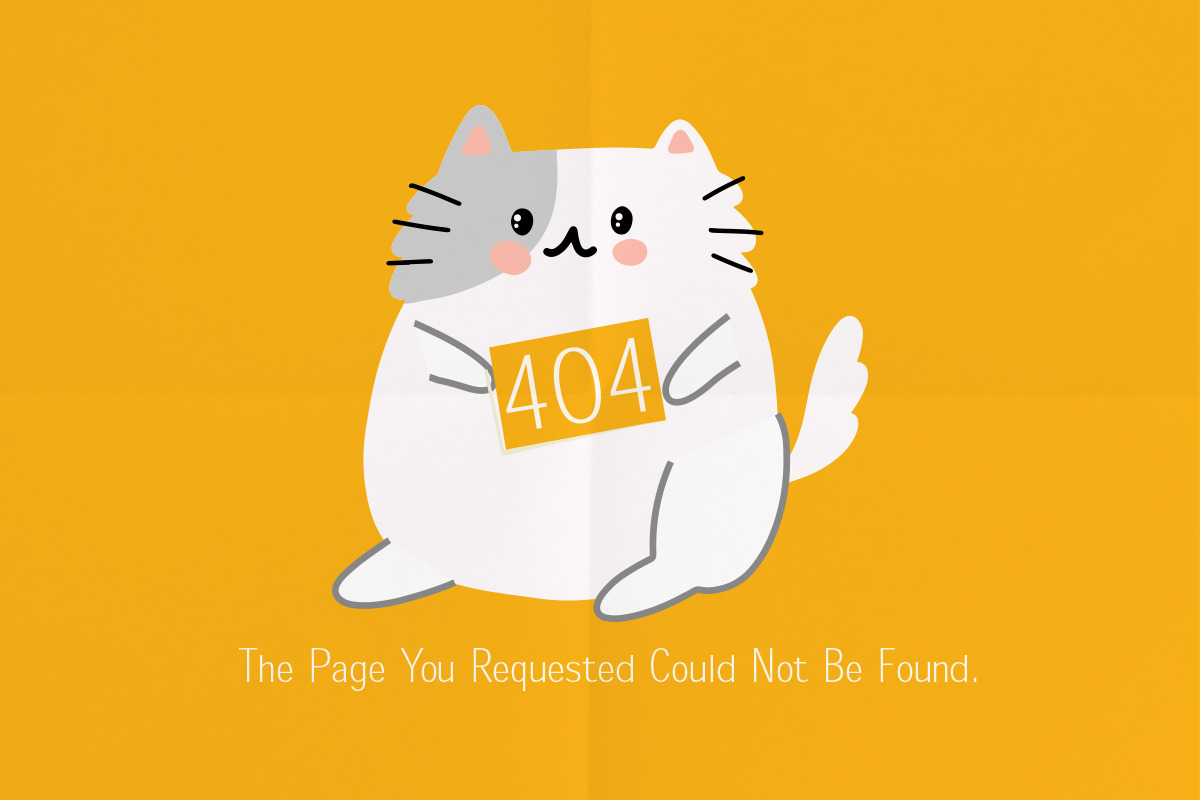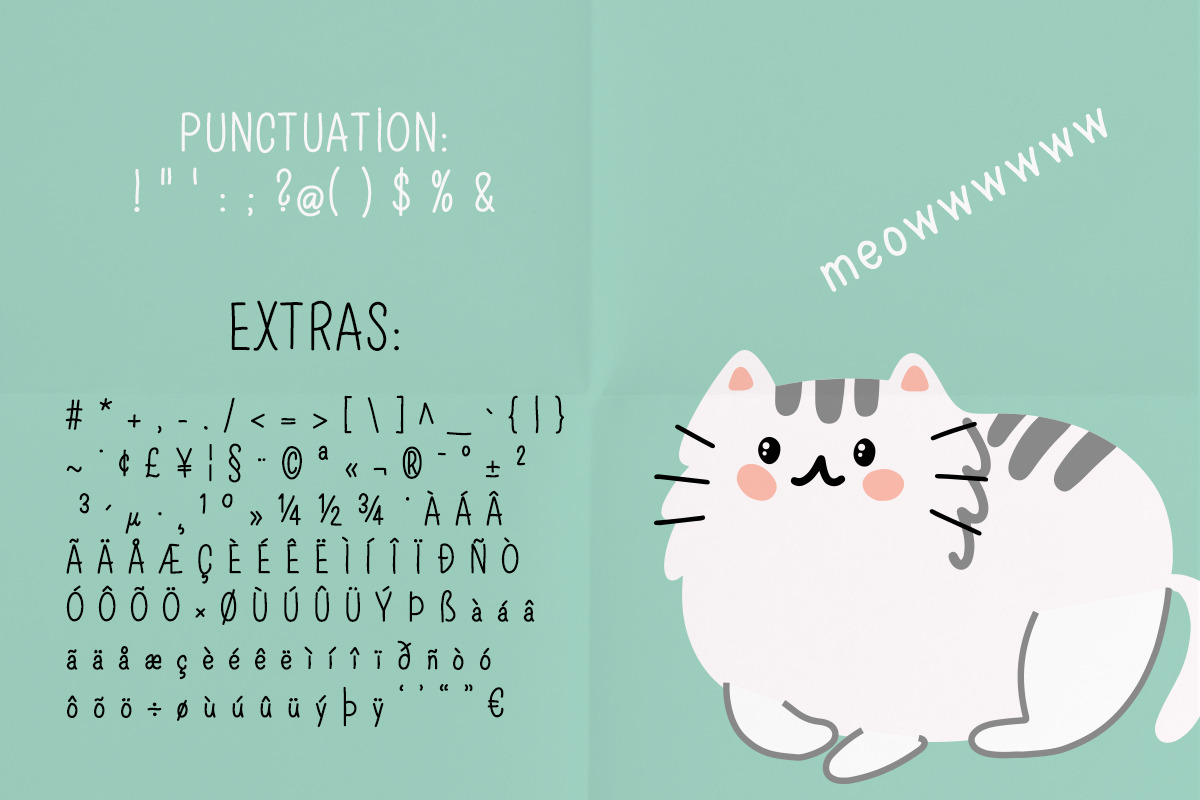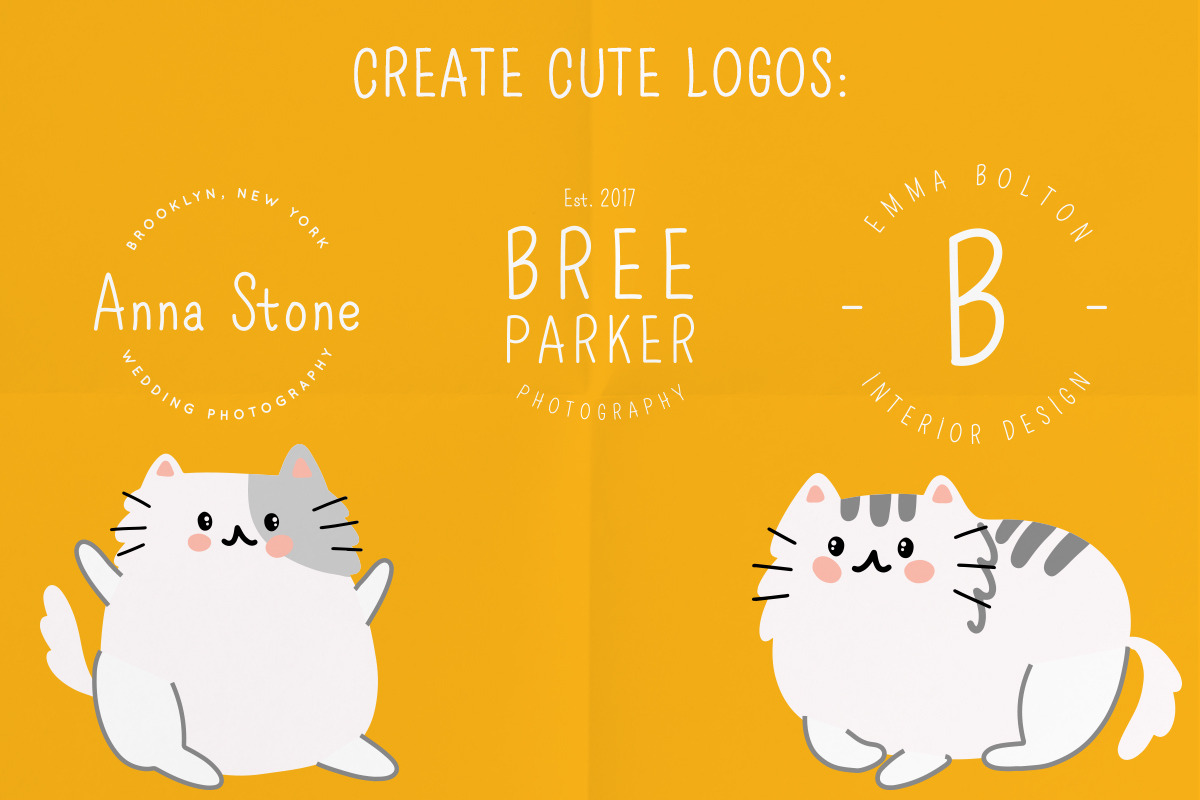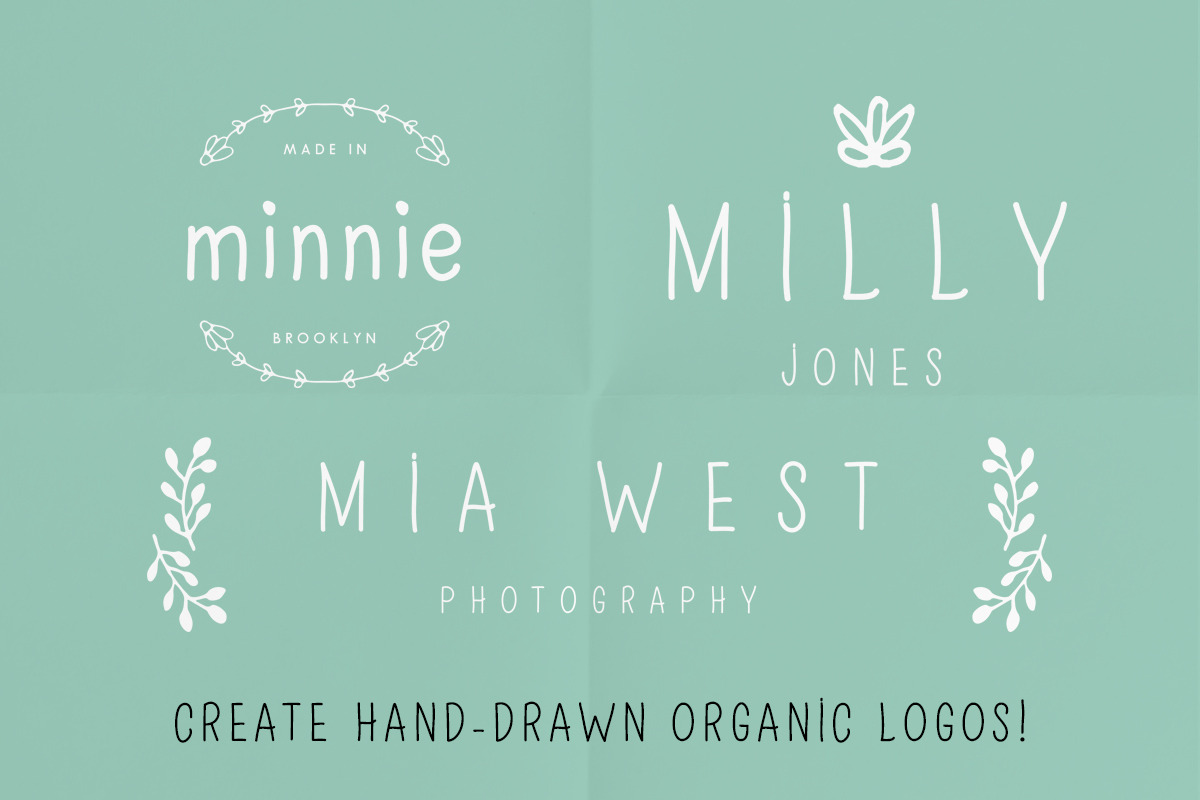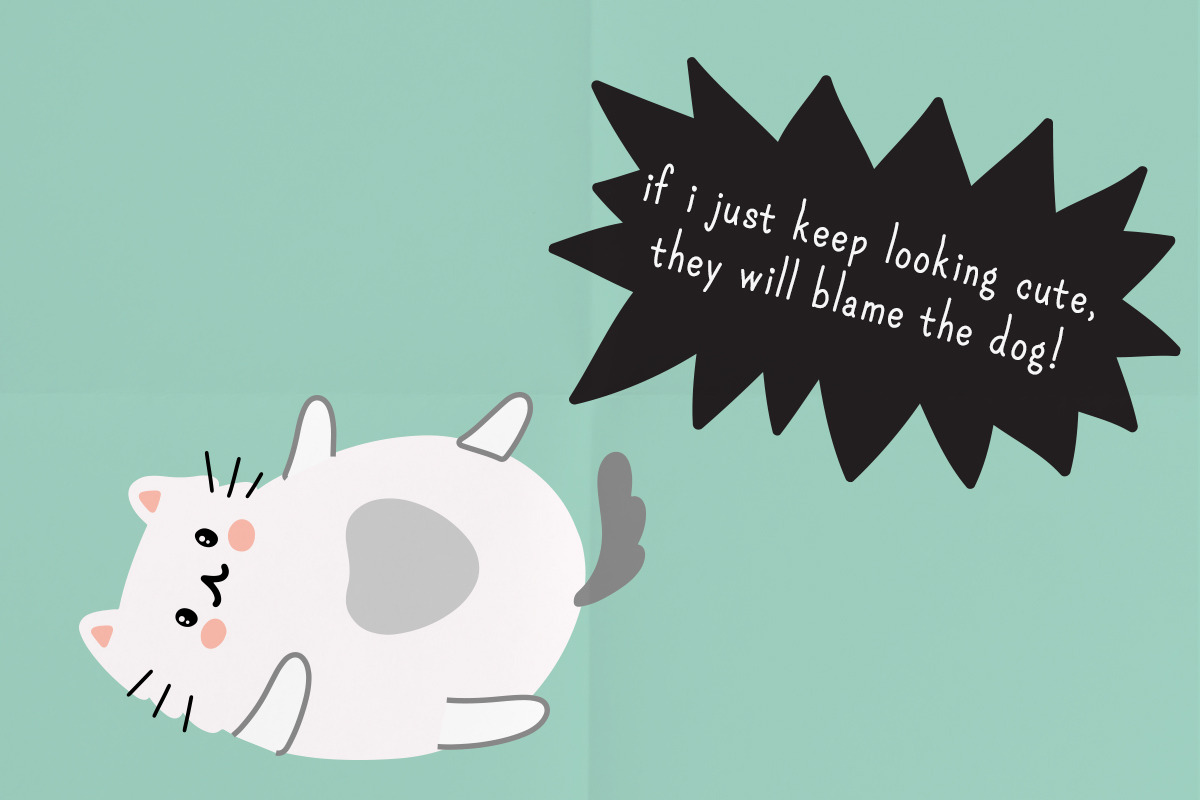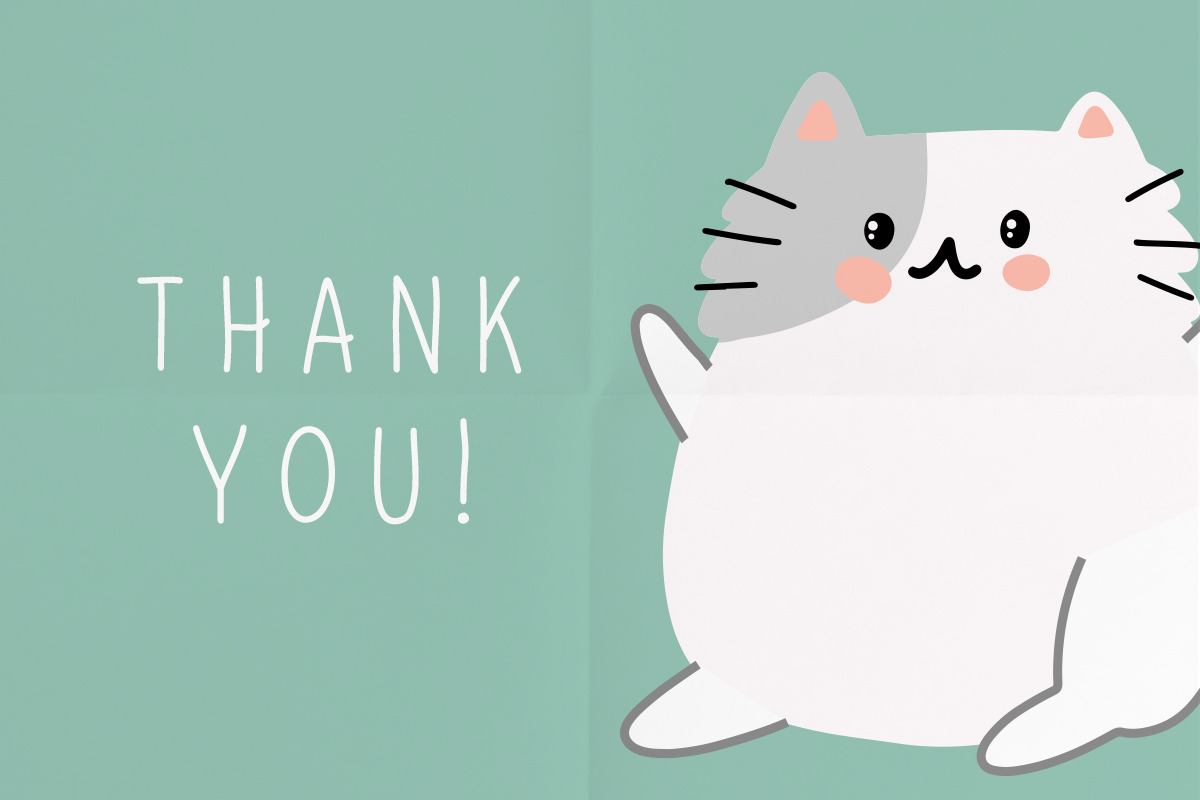
Meow: a hand-drawn serif font
Introducing: Meow a hand-drawn cute font!
Meow is a cute hand-drawn font! Its casual charm makes it appear wonderfully down-to-earth, readable and, ultimately, incredibly versatile. This versatility will appeal to a wide range of crafty ideas, from letterheads and titles, to stationery.
This is a hand-drawn font perfect for:
As the nature of the characters is hand-drawn some "wonky" lines might be found which helps to add another touch of organic in the font that resonates with my style!